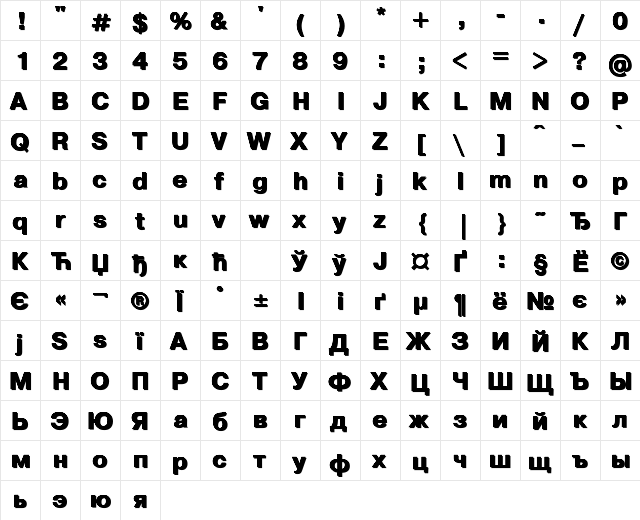
PragmaticaShado w Bold Cyrillic
Design Context for PragmaticaShado Typeface
PragmaticaShado is a composed and adaptable typeface that performs quietly and consistently across a wide range of design contexts. Its bold stroke weight gives it real presence on the page.